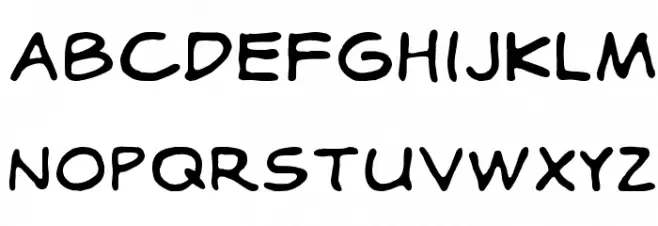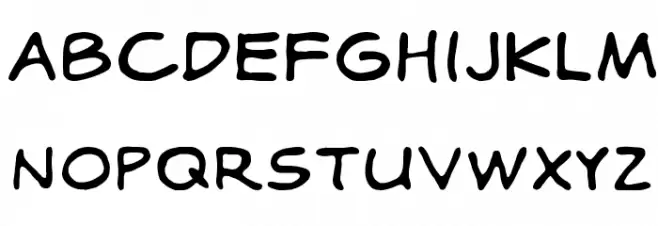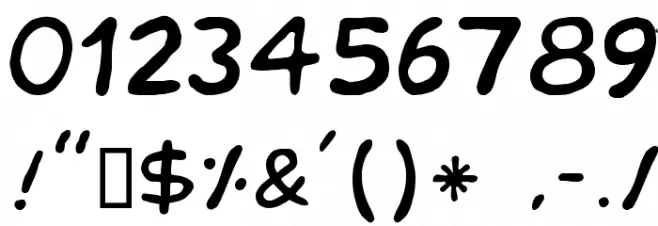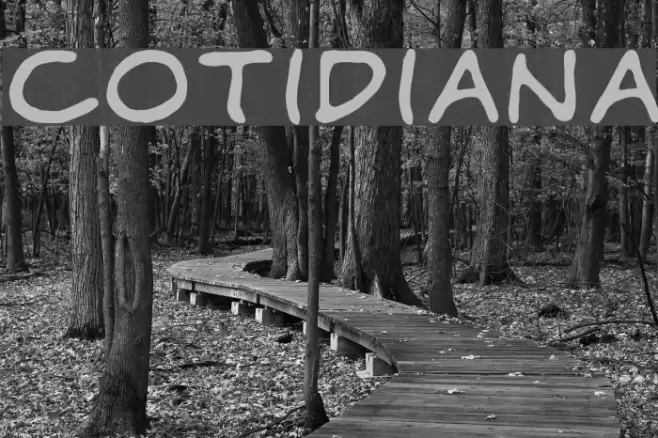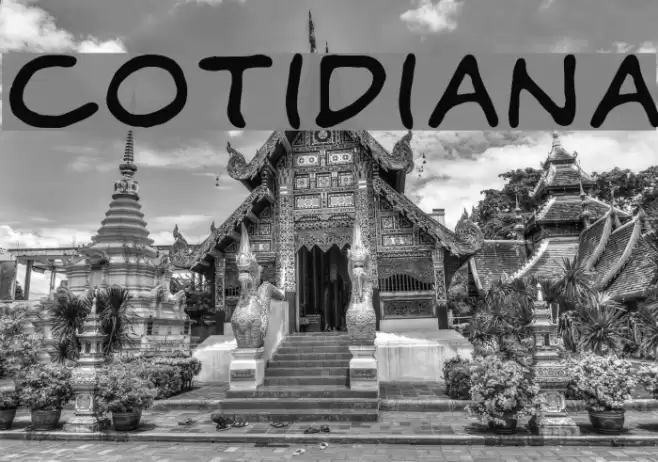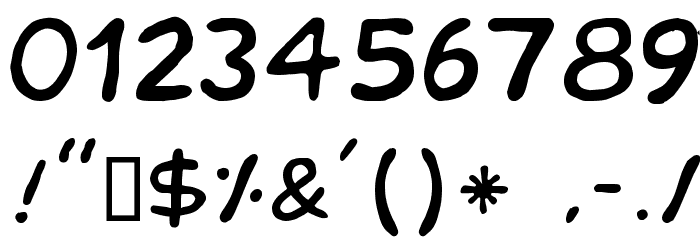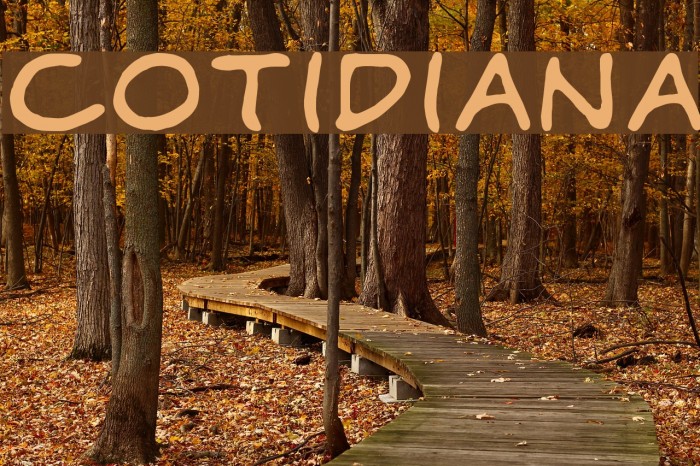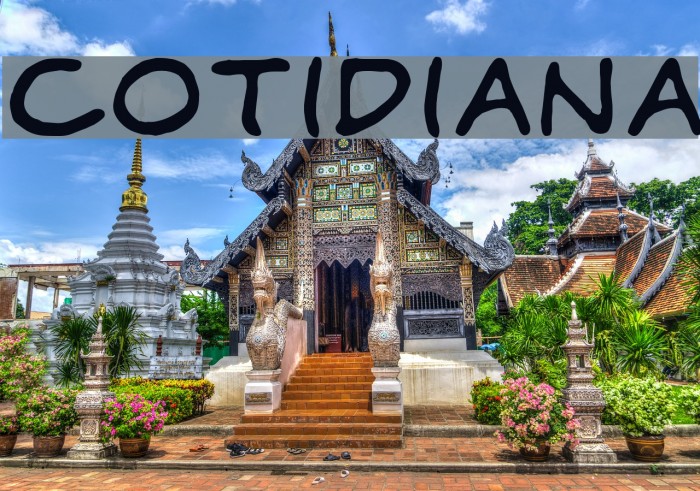
Cotidiana
This font features a playful and informal handwritten style, characterized by its rounded and slightly irregular letterforms. The strokes are consistent in weight, giving it a uniform appearance while maintaining a casual and approachable feel. The letters are well-spaced, ensuring readability, and the overall design exudes a sense of friendliness and warmth. This font is versatile, suitable for projects that require a personal touch or a relaxed vibe. Its simplicity and charm make it ideal for a variety of creative applications.
A playful, handwritten font with rounded, uniform strokes and a casual feel.
- Proposed Projects: Ideal for greeting cards, children's books, casual branding, and social media graphics.
- Overall Style: Casual
- Use Case: Headlines, Informal text, Creative projects